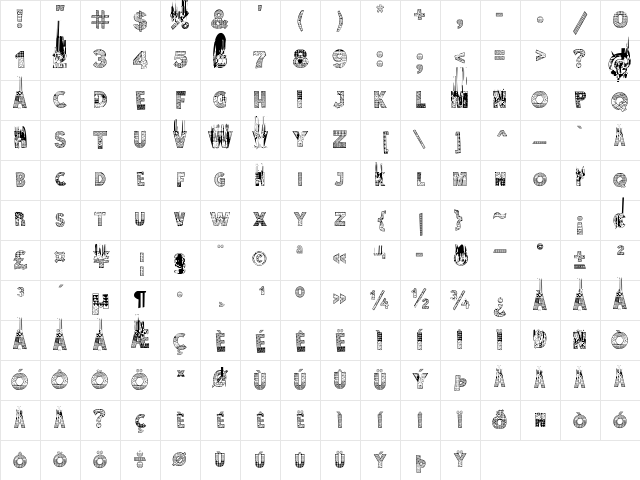
Karamuruh Turbo Regular Free Font
Karamuruh Turbo Regular
Design Context for Karamuruh Turbo
Karamuruh Turbo is a composed and adaptable typeface that performs quietly and consistently across a wide range of design contexts.